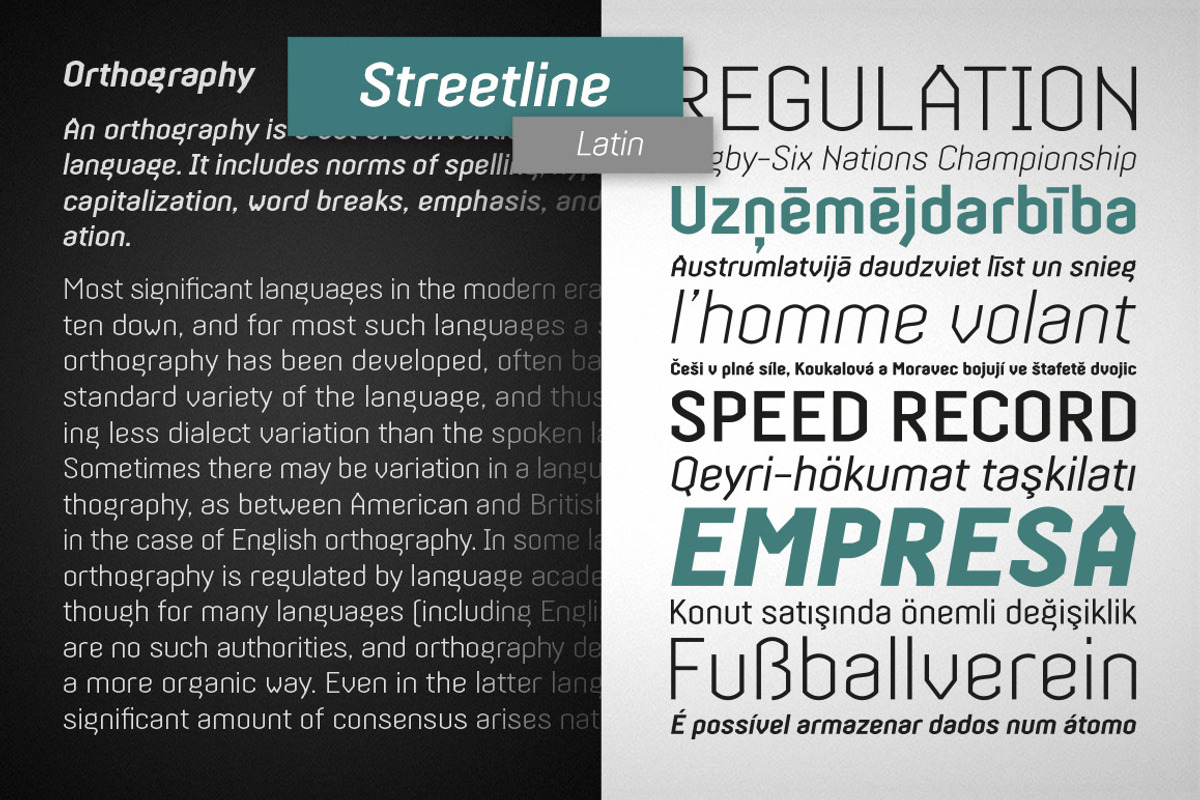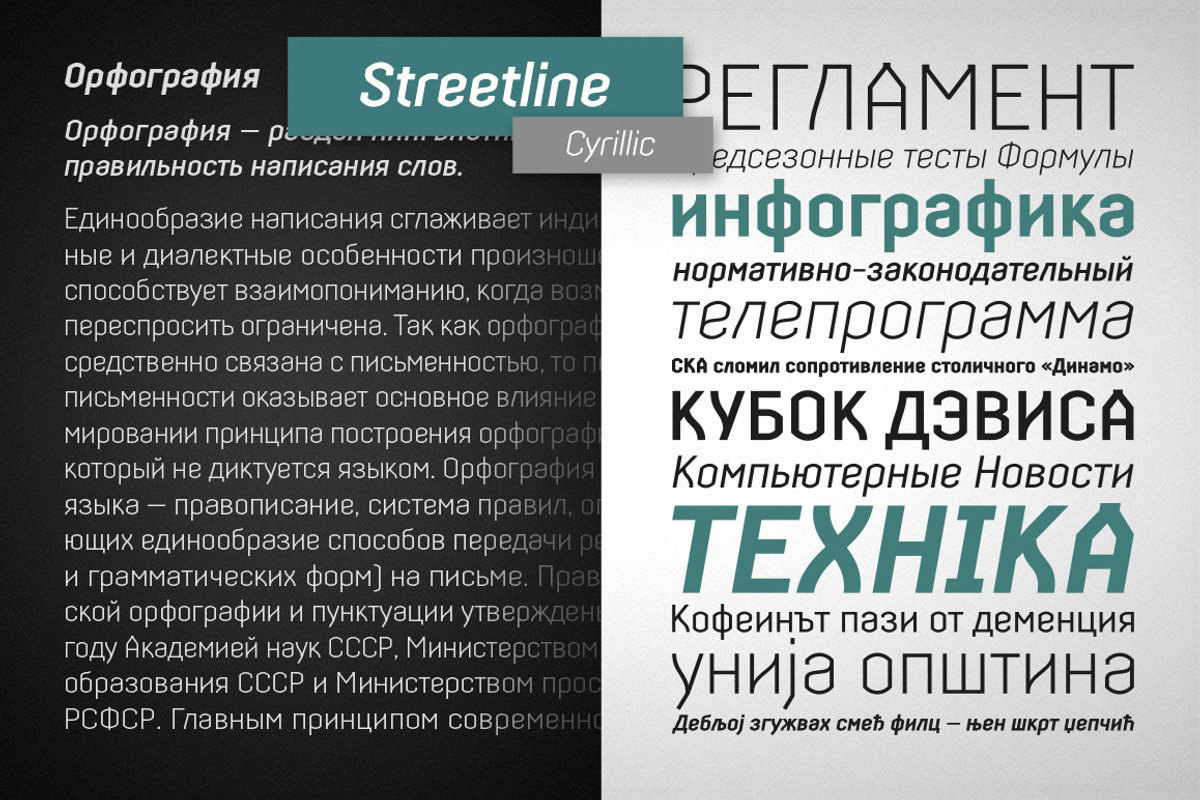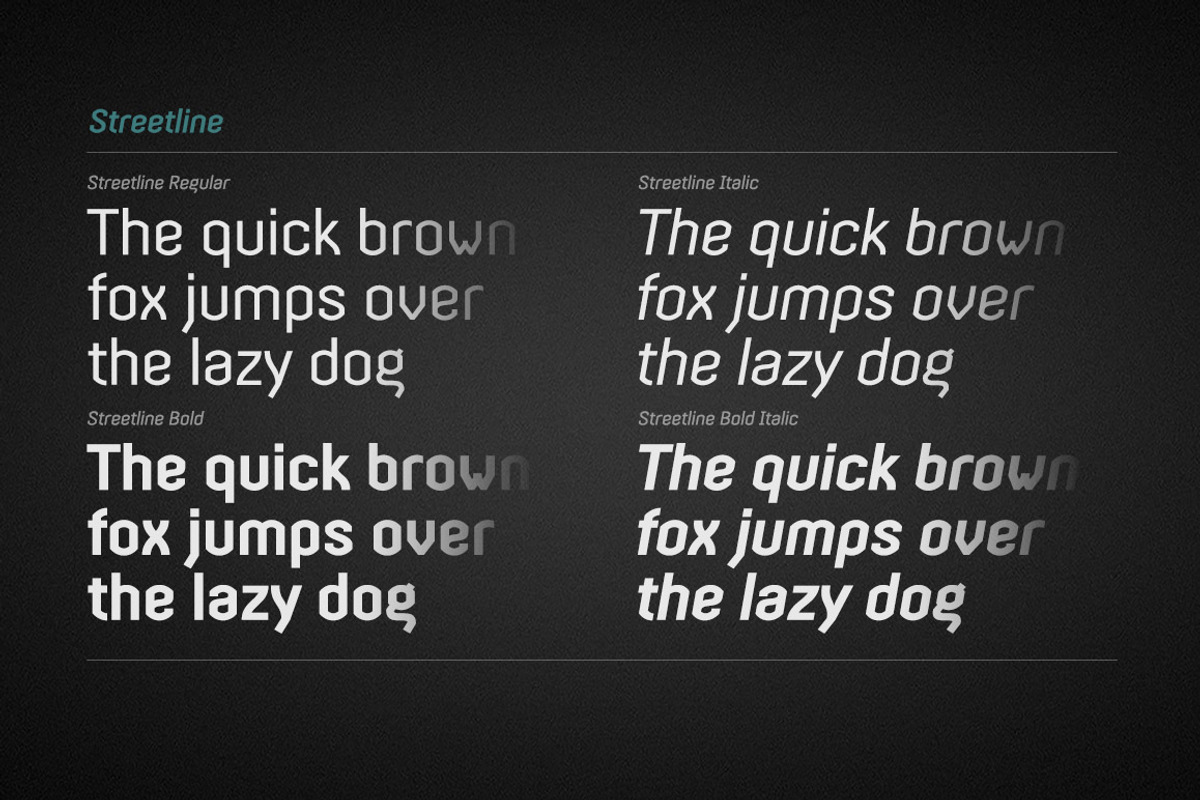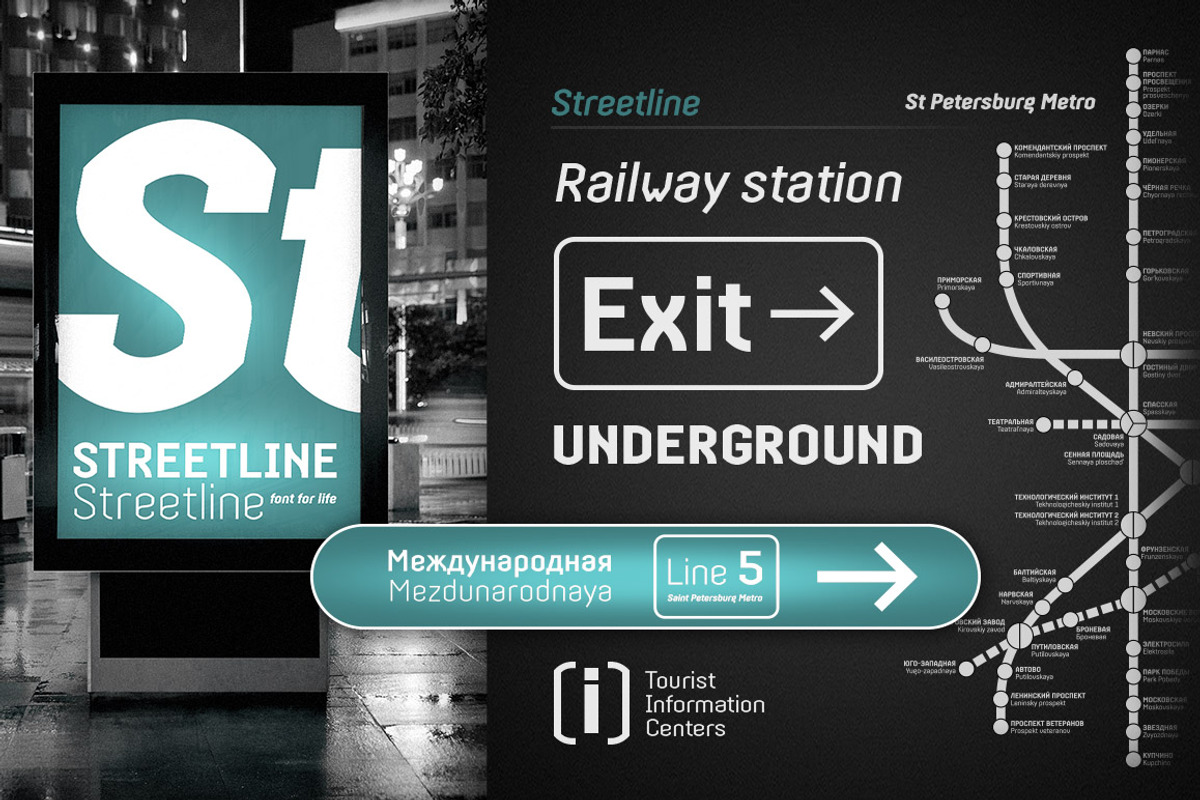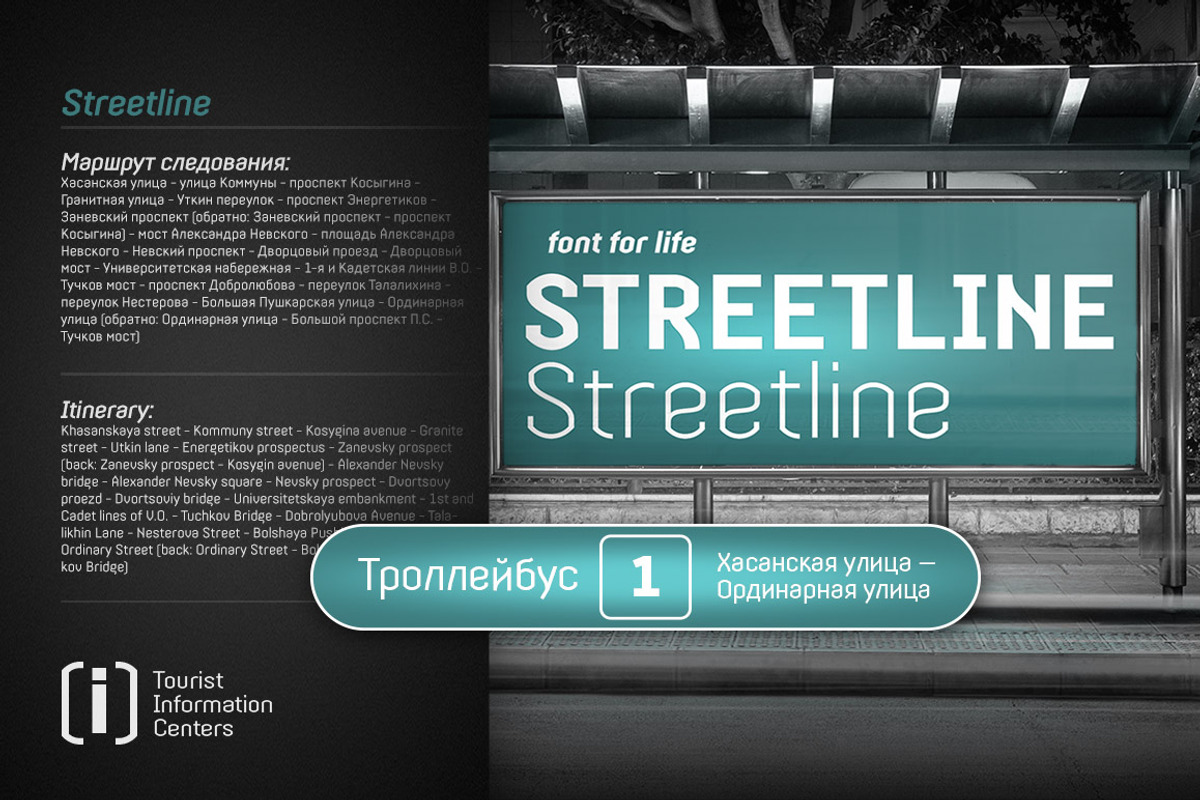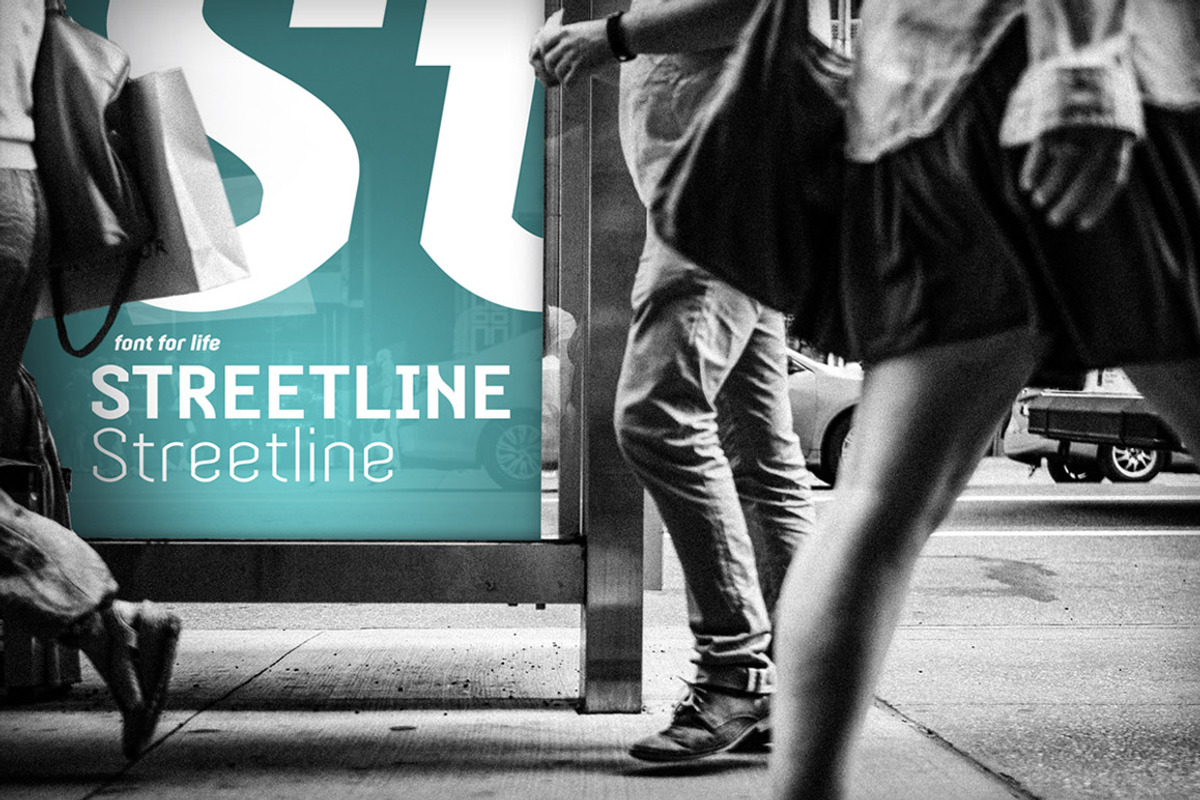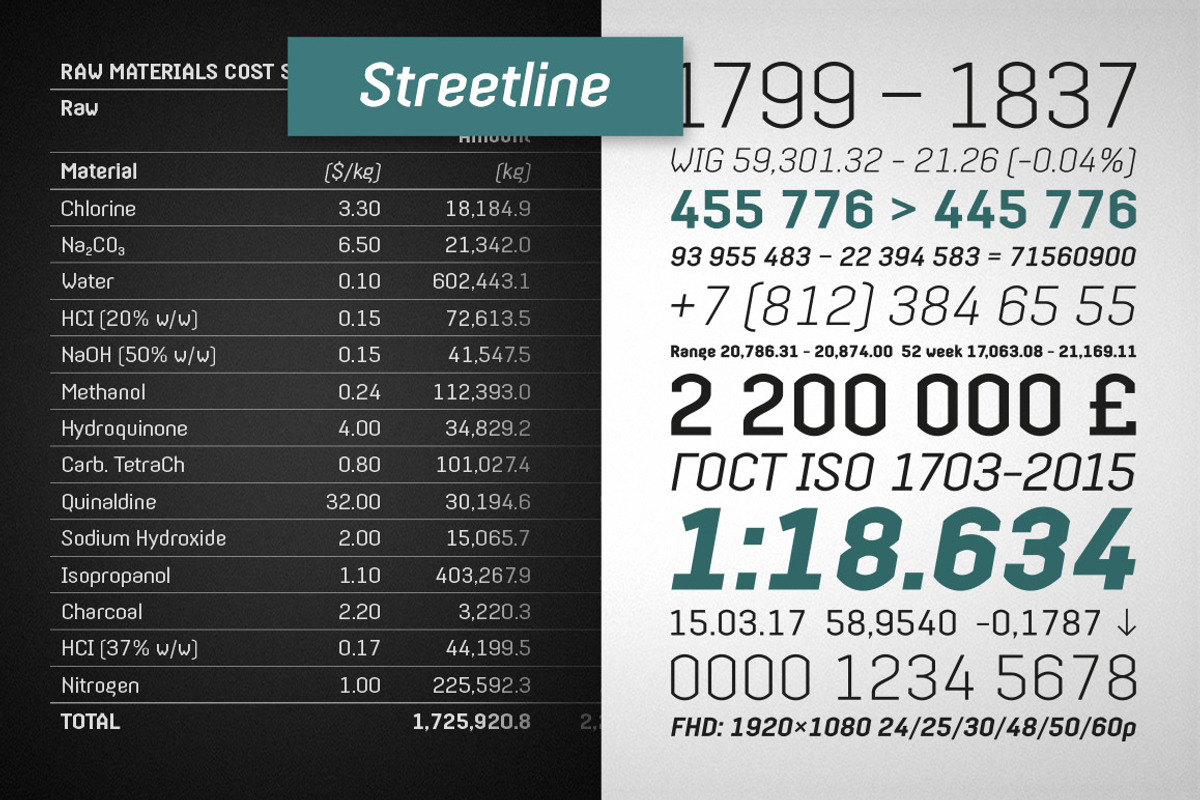
Streetline - 4 fonts
Streetline is a sans-serif font family includes a 10 styles (5 weight and italics), support Latin, Cyrillic, Eastern European, Baltic and Turkish scripts. (Base set includes only Regular, Italic, Bold and Bold-Italic, for other styles see complete famyly set)
Streetline is font with wide sphere of application, legible from very small size to very large ones. Can be used both in technical documentation, office work, business communication, as well as in advertising, visual communication, navigation, magazines and posters, in branding and packaging.